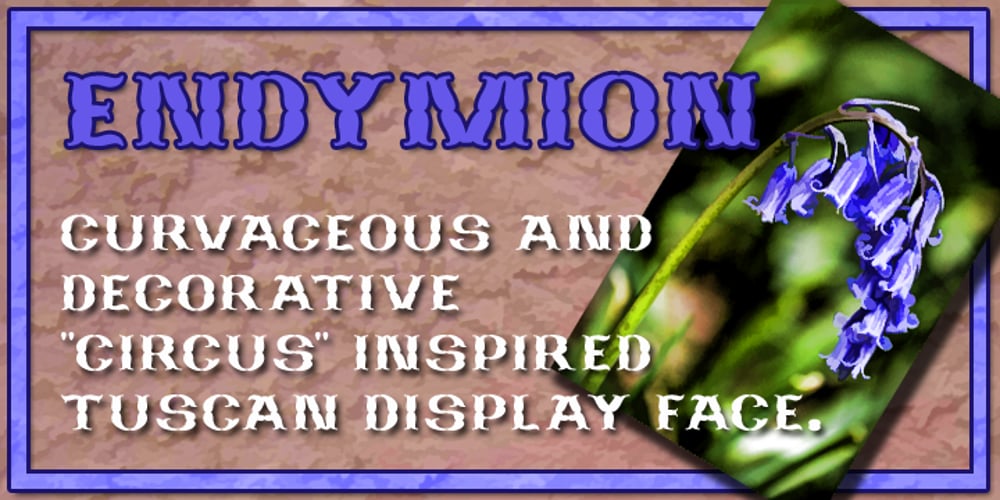
Endymion Font Family was designed by Paul James Lloyd and published by Greater Albion Typefounders. Endymion contains 1 styles and family package options. Endymion is a Tuscan display face that speaks of traditional fairgrounds and circuses, or 19th century poster design and even of the wild west. Its name derives from its ogee curves, which have been likened to the bluebell (Endymion) flower. Bring a sense of lively fun to your next design with Endymion.